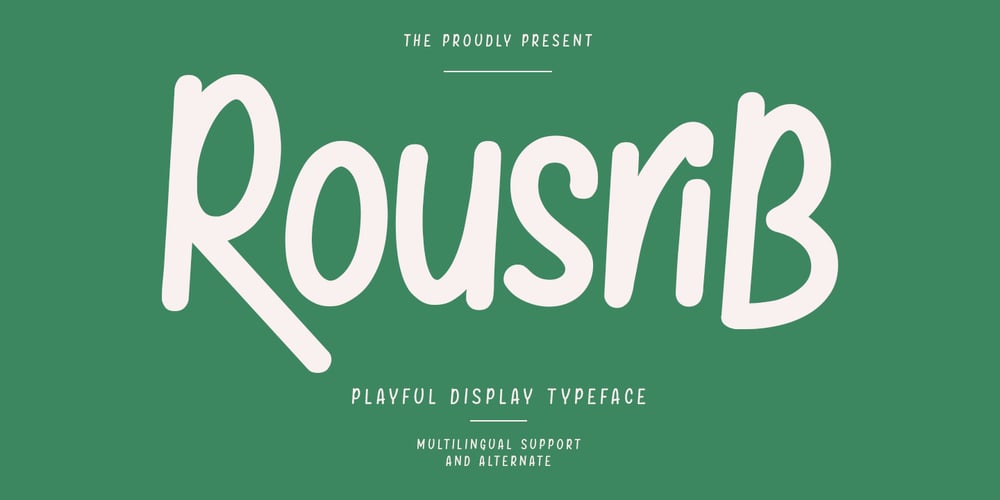
MC Rousrib Font Family was designed by Gilang Maulana and published by Maulana Creative. MC Rousrib contains 1 styles and family package options. Rousrib font. Heavy stroke, fun character with a bit of ligatures. To give you an extra creative work. Rousrib font support multilingual more than 100+ language. This font is good for logo design, Social media, Movie Titles, Books Titles, a short text even a long text letter and good for your secondary text font with script or serif. Make a stunning work with Rousrib font.